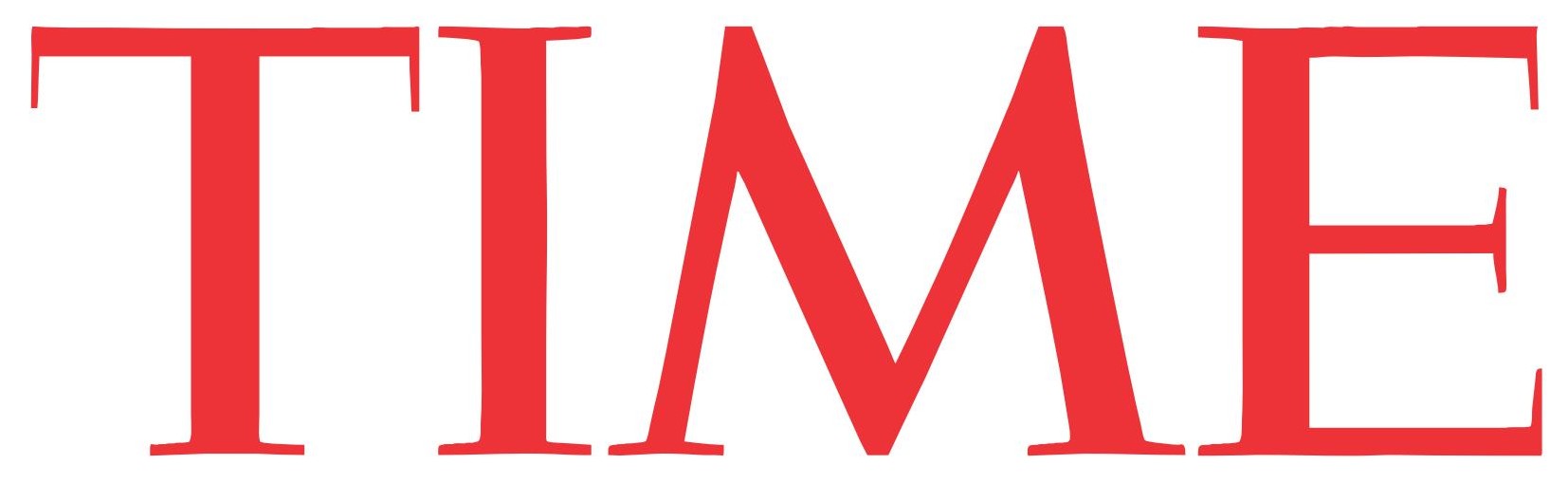
Time Magazine Font Name
Time Magazine Font Name. With reserved font name times. Time (stylized in all caps) is an american news magazine and news website published and based in new york city.for nearly a century, it was published weekly, but starting in march 2020 it transitioned to every other week.
Life magazine, 1969 special edition: Time magazine, mar 26, 2007 2007. Time magazine has its own font, called time magazine font.
Time Magazine Has Its Own Font, Called Time Magazine Font.